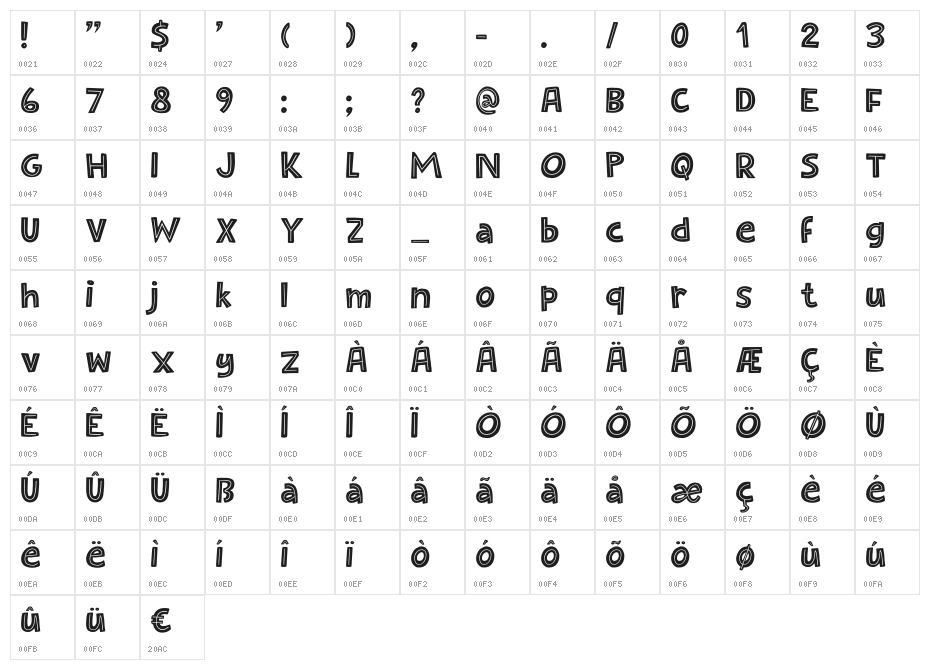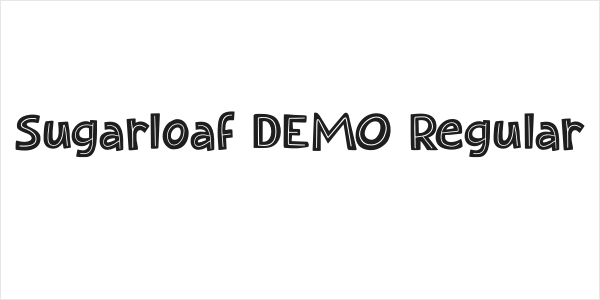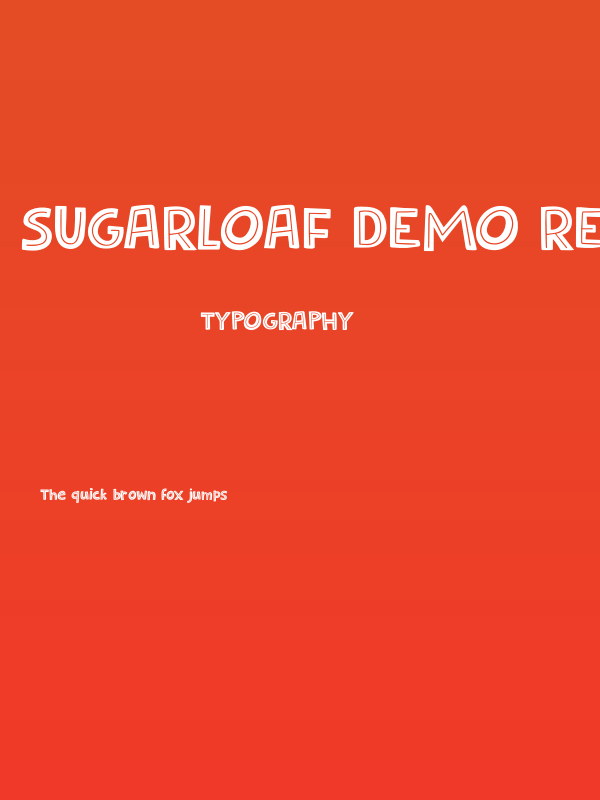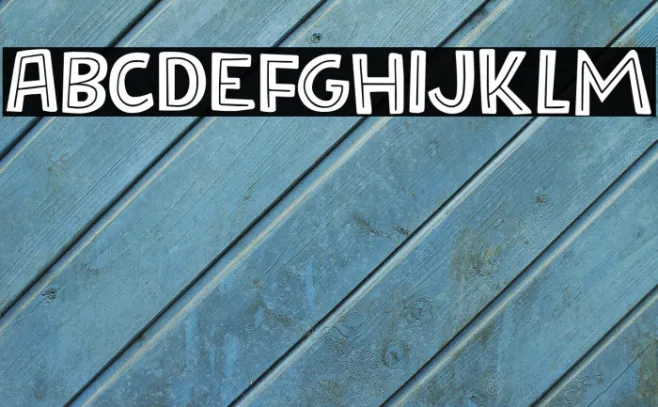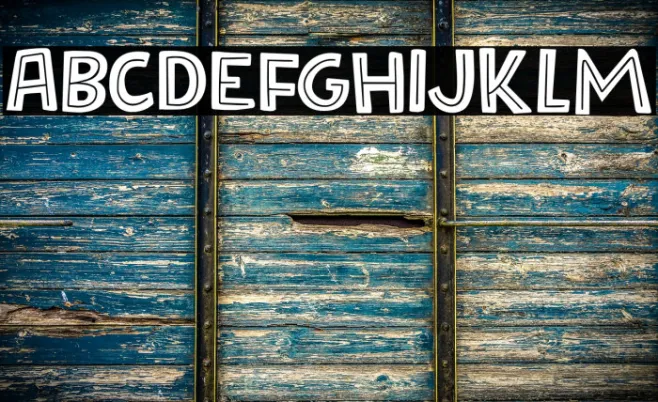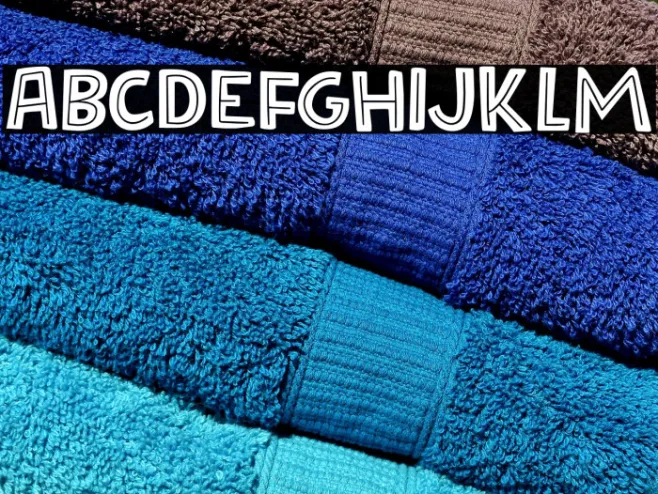
Sugarloaf DEMO Regular Font
Sugarloaf DEMO Regular Description
This playful and bold font features a unique hand-drawn style with a slightly irregular and whimsical appearance. The letters are outlined with a thick black stroke, giving them a cartoonish and lively feel. The uppercase and lowercase characters maintain a consistent style, with rounded edges and a friendly demeanor. The numbers and special characters follow the same design, ensuring a cohesive look across all text elements. This font exudes a sense of fun and creativity, making it ideal for projects that require a touch of personality and charm.
| Proposed Projects | Ideal for children's books, playful branding, greeting cards, and creative posters. |